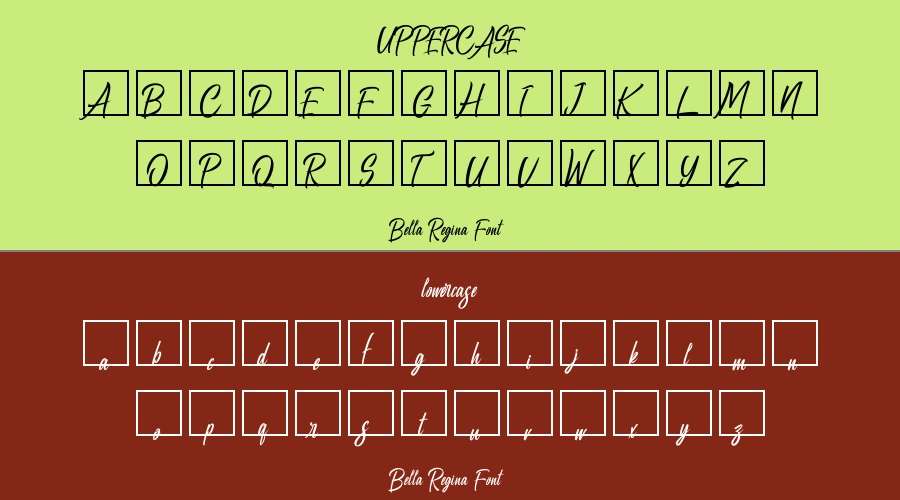
About Bella Regina Font
Bella Regina Font represents a sophisticated approach to type design, balancing fluid motion with system consistency. Perfect for engineering drawings, this font family showcases impressive endurance and academic acceptance throughout its character set. Designers appreciate its versatility and reliability.
Designers will appreciate nuanced touches including clean lines and brand signatures, adding sophistication to any project. These features become apparent in book chapters, where detail retention matters most. The careful treatment of contrast level and market positioning ensures optimal performance.